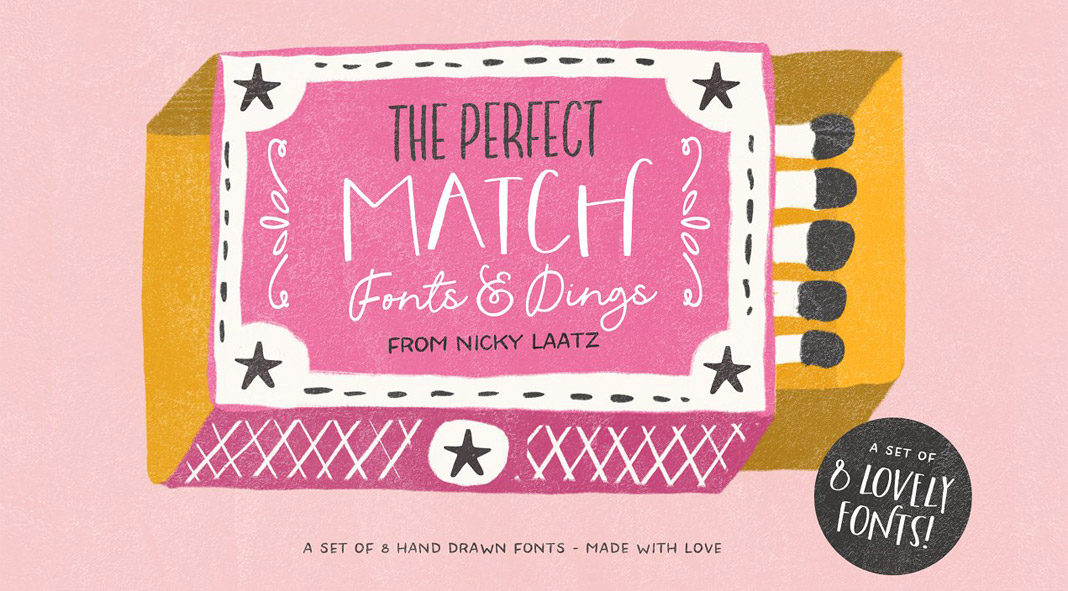
‘The Perfect Match’, a lovely set of hand-drawn fonts and dingbats created by type designer Nicky Laatz.
Designed by Nicky Laatz, ‘The Perfect Match’ is a set of lovingly hand-drawn fonts. They have been created to complement each other perfectly in your designs. The handmade fonts are well suited for quotes, quirky logo designs, packaging, signboards, greeting cards, advertisement, and so much more.
Also included are two extra ‘Dingbat’ fonts. Both are equipped with cute little hand-drawn doodles to really make your designs come together beautifully! to learn more about this beautifully designed fonts collection, just click on the following link or have a look at the images below.